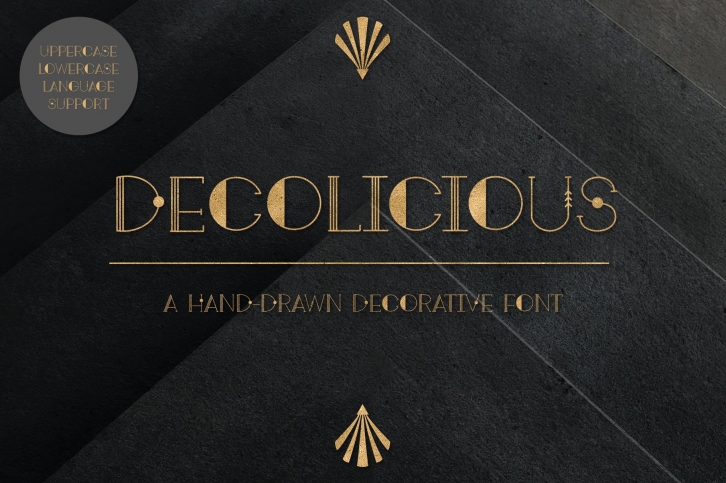
Decolicious is a gorgeous font that was realeased on October 16, 2022. The font can be used in many style contexts and design environments. Perfect for invitations, magazines, websites, logos, and more! It was designed by J Oliver Designs and the file size is 11.32 MB. Thanks for checking out this font!